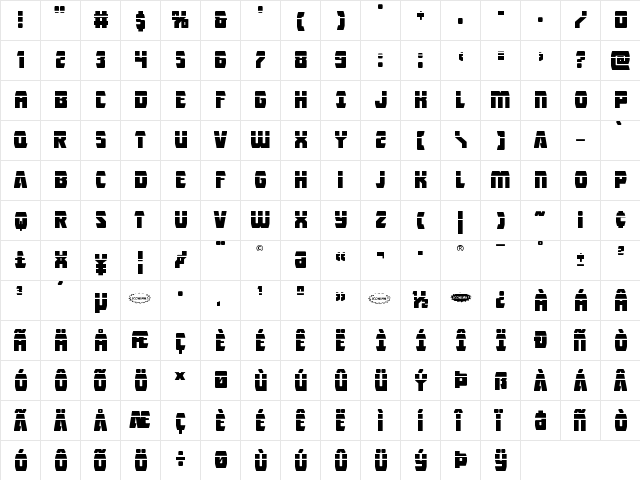
Intergalactic Laser Regular
Design Context for Intergalactic Laser Typeface
Intergalactic Laser is a composed and adaptable typeface that performs quietly and consistently across a wide range of design contexts.